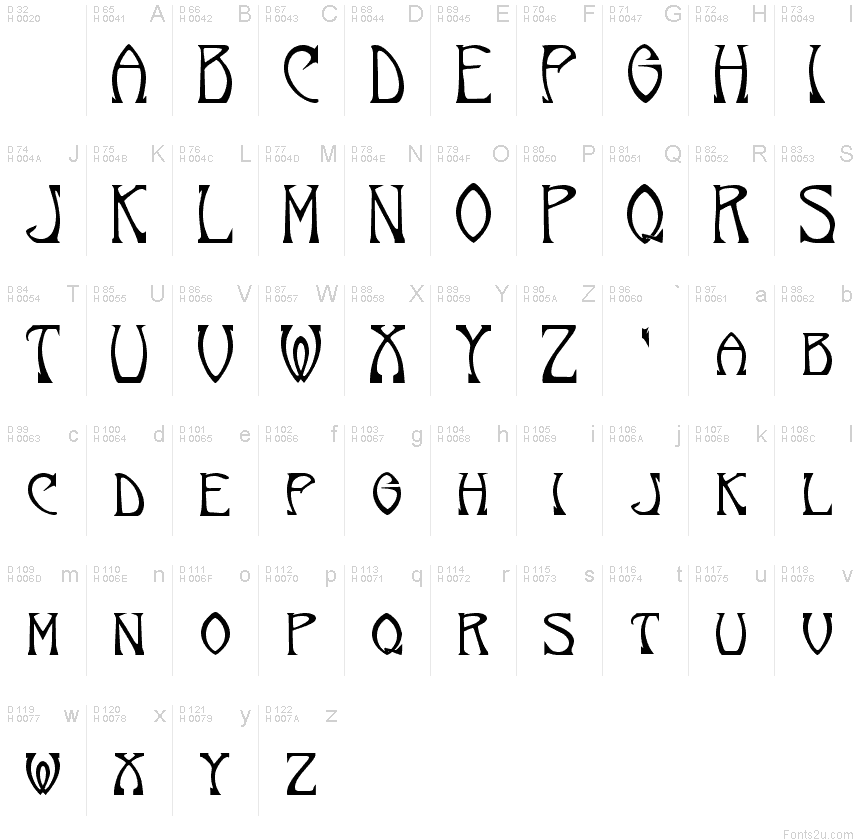
Norumbega by David F. Nalle of Scriptorium Font Library is a free fantasy display font with tall, dramatically tapered capitals. Its uneven curves, sharp flares, and shifting stroke widths give the lettering a hand-cut, storybook quality.
Its medieval-fantasy character suits game titles and historical fiction covers. The irregular silhouettes also fit theatrical posters, echoing carved scenery and painted signs. Fantasy merchandise and event invitations benefit from pointed details tied to legends and folklore.